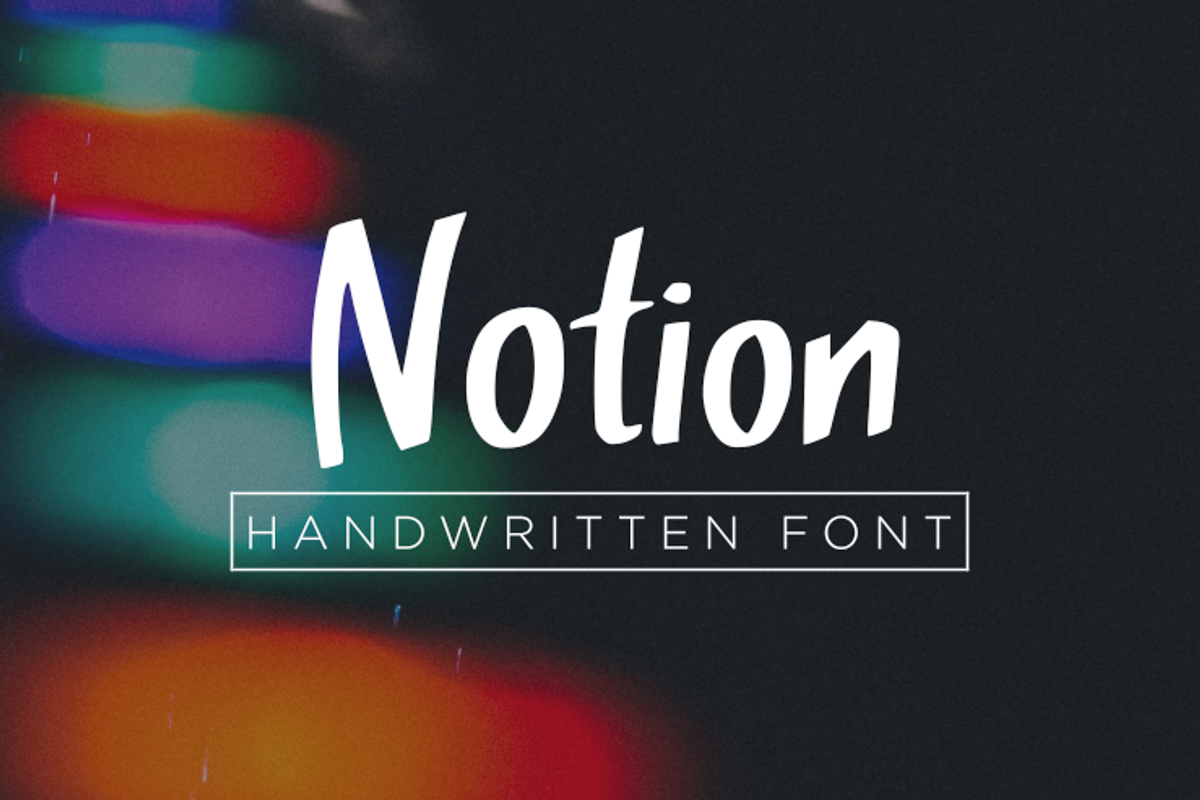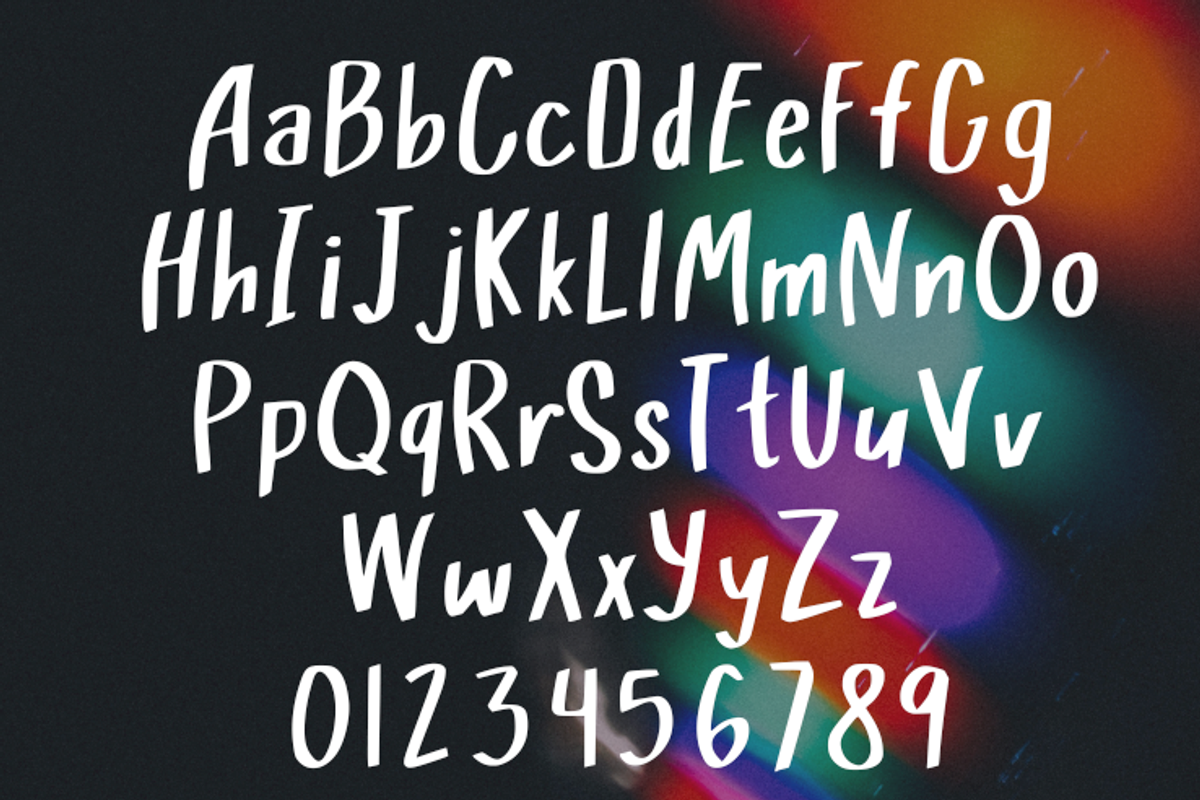
Notion Font
Notion: an impulse or desire, especially one of a whimsical kind.
- This font contains upper & lowercase characters, numerals and a large range of punctuation.
Notion Font by Melon Script fits naturally into Branding, posters, packaging, typography.